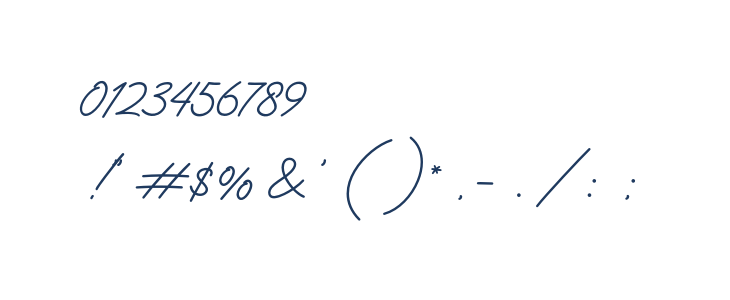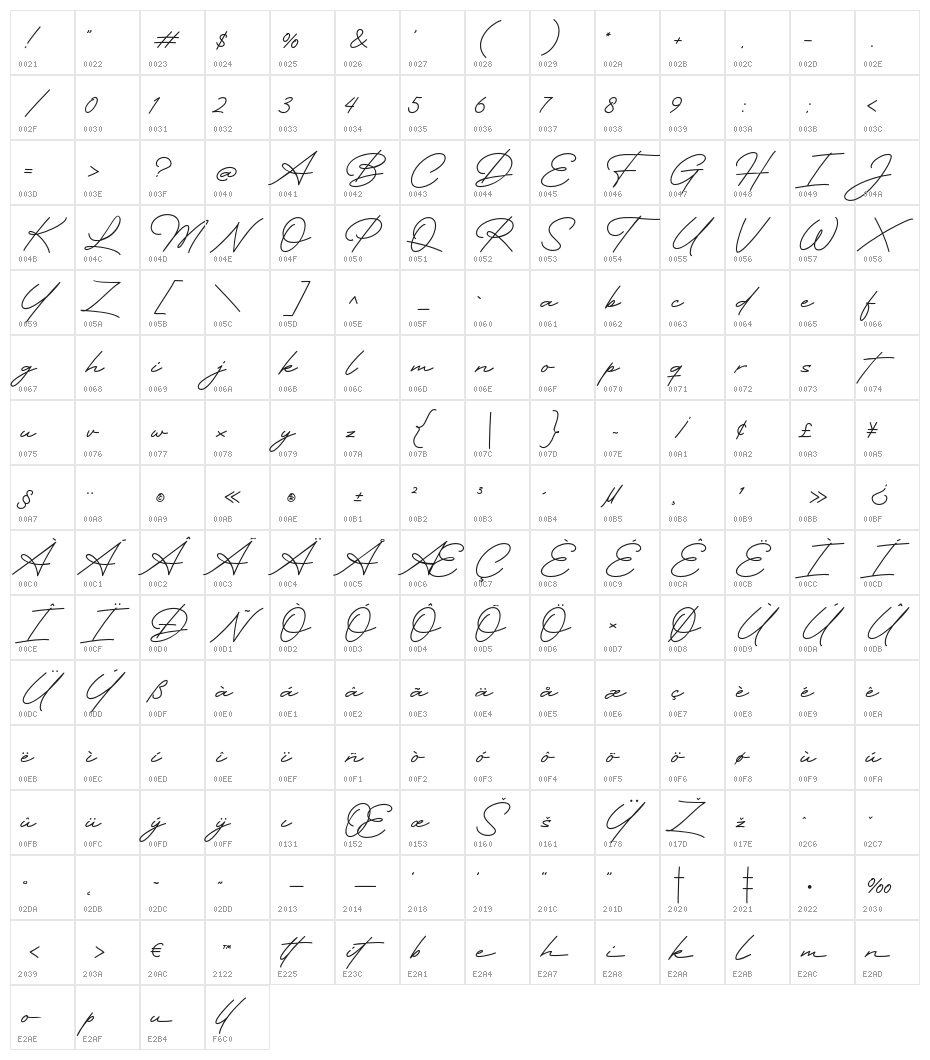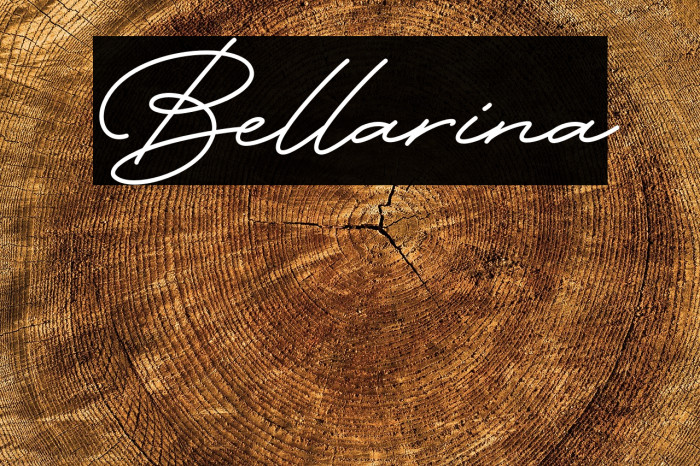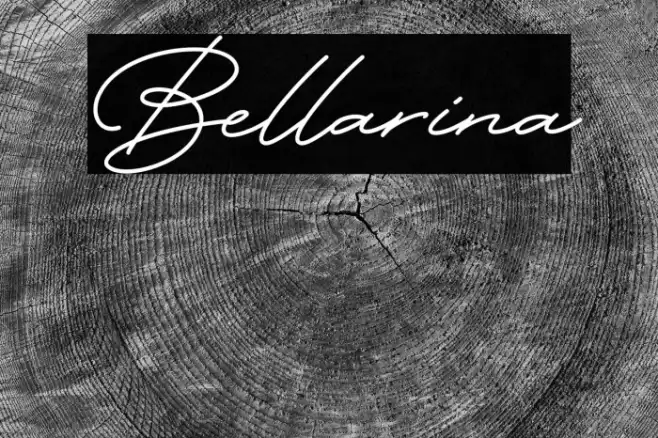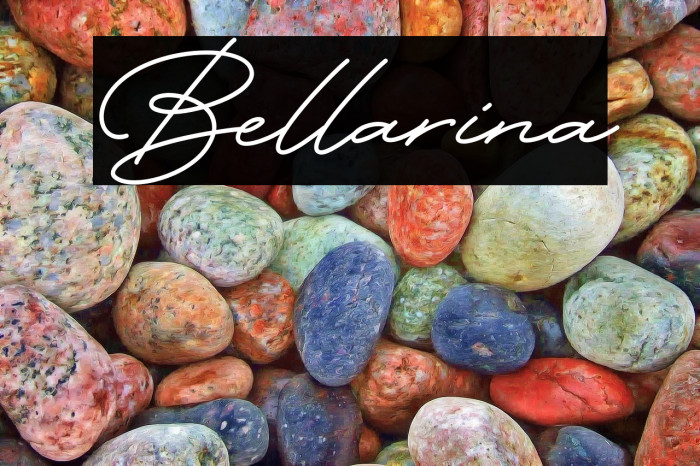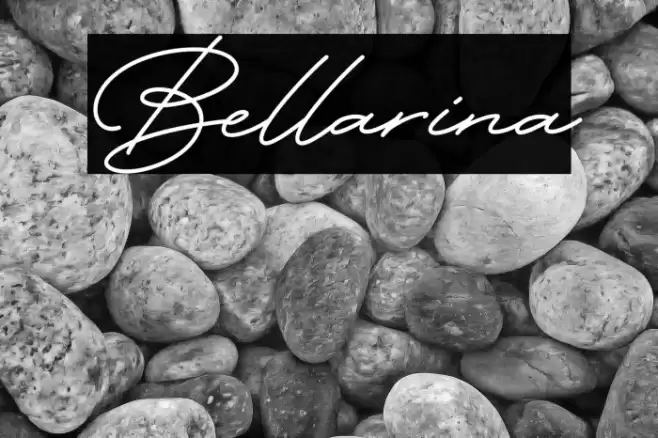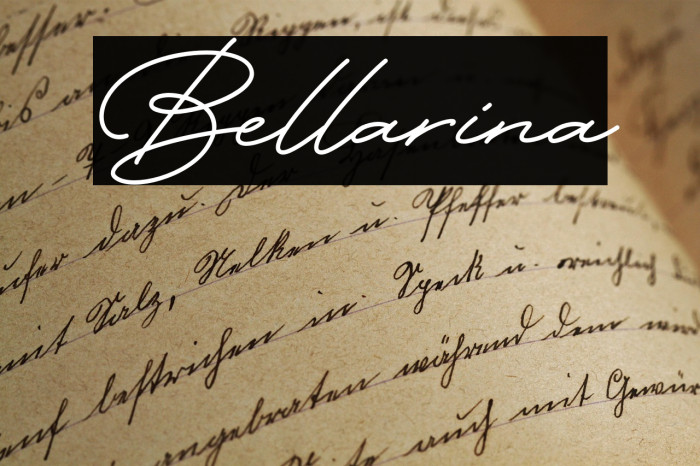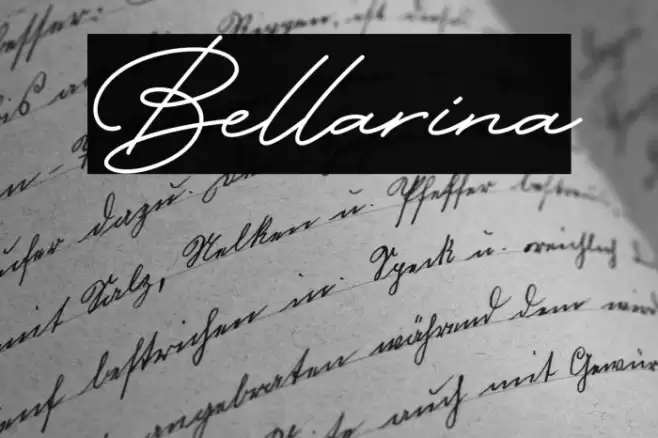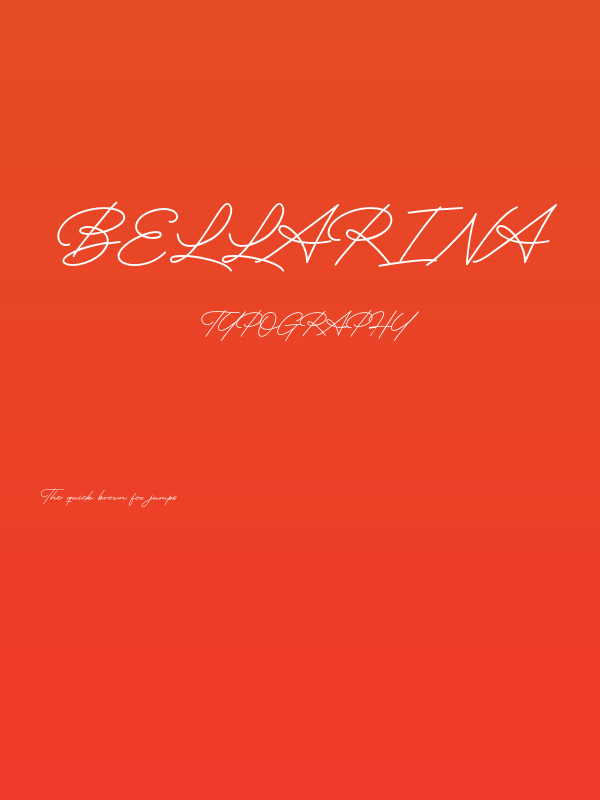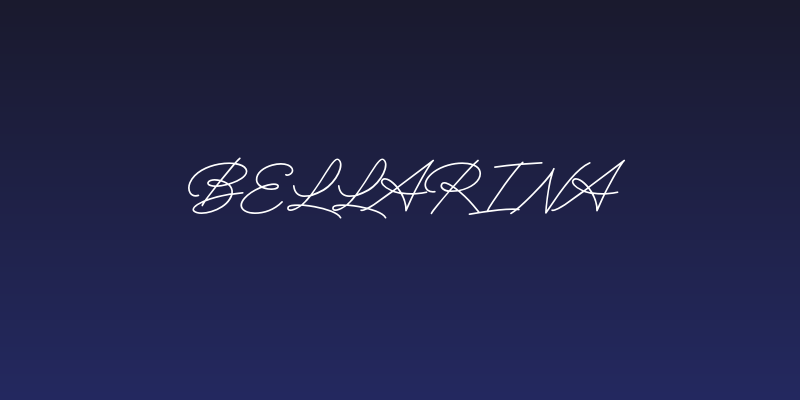
Bellarina Font
Bellarina Description
This elegant script font features a flowing, cursive style with smooth, connected strokes that mimic natural handwriting. The uppercase letters are slightly more elaborate, with graceful loops and swirls, while the lowercase letters maintain a consistent, fluid motion. The numerals and special characters complement the alphabet with a similar handwritten aesthetic. The font's overall appearance is sophisticated and artistic, making it suitable for projects that require a personal touch or a sense of elegance.
| Overall Style | Elegant, Artistic |
| Use Case | Logos, Invitations, Artistic Text |
| Proposed Projects | Ideal for wedding invitations, greeting cards, personal branding, and artistic projects. |